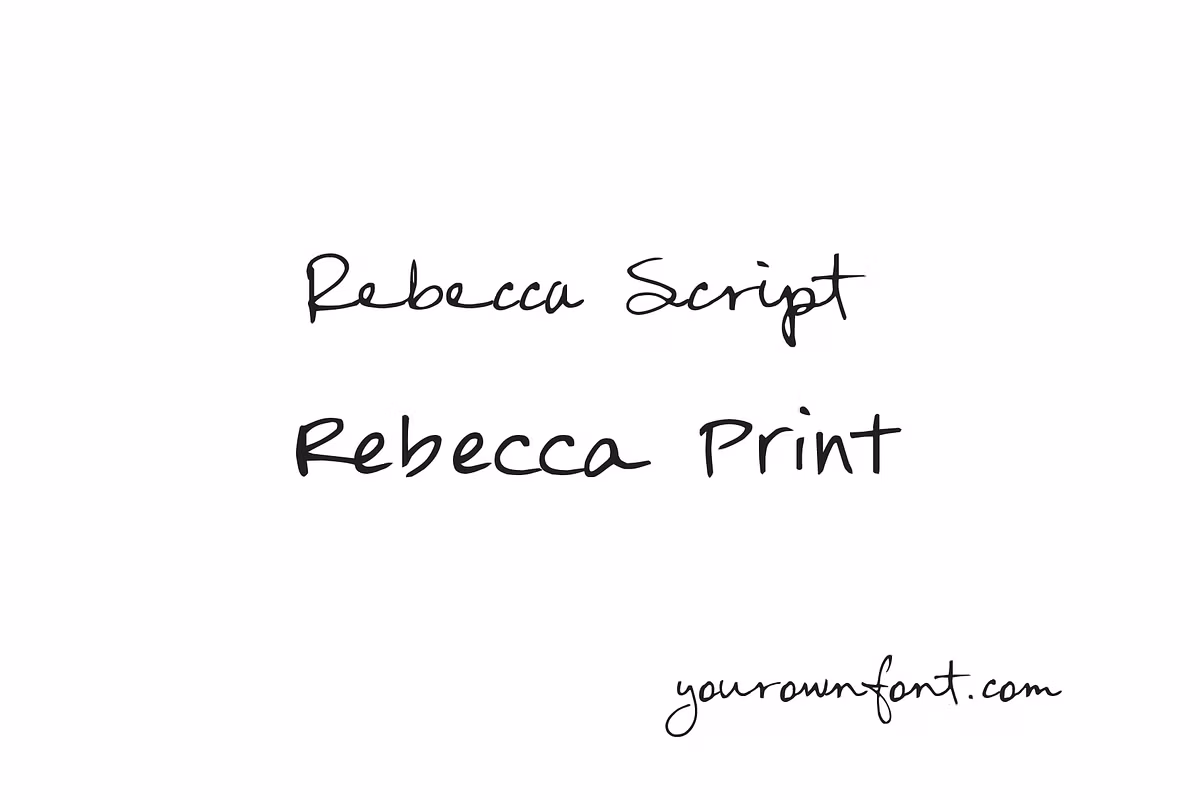
Rebecca YOFF Script and Print Font Free Download is a versatile font family that combines the elegance of a script font with the clean, clear style of a print font. With its flowing, handwritten script paired with a smooth, professional print version, this font duo is perfect for a wide range of creative projects including branding, invitations, logos, packaging, and social media content.
Rebecca YOFF offers both a personal, artistic touch through its script style and a polished, legible option with its print version, making it a great choice for designs that need both flair and readability.